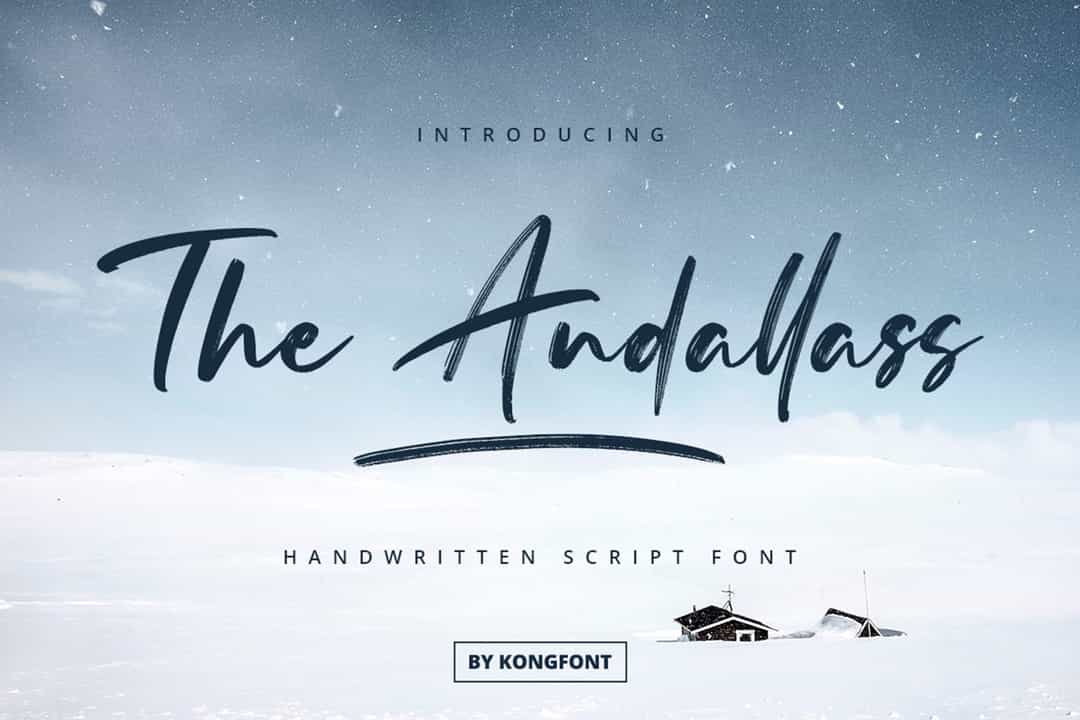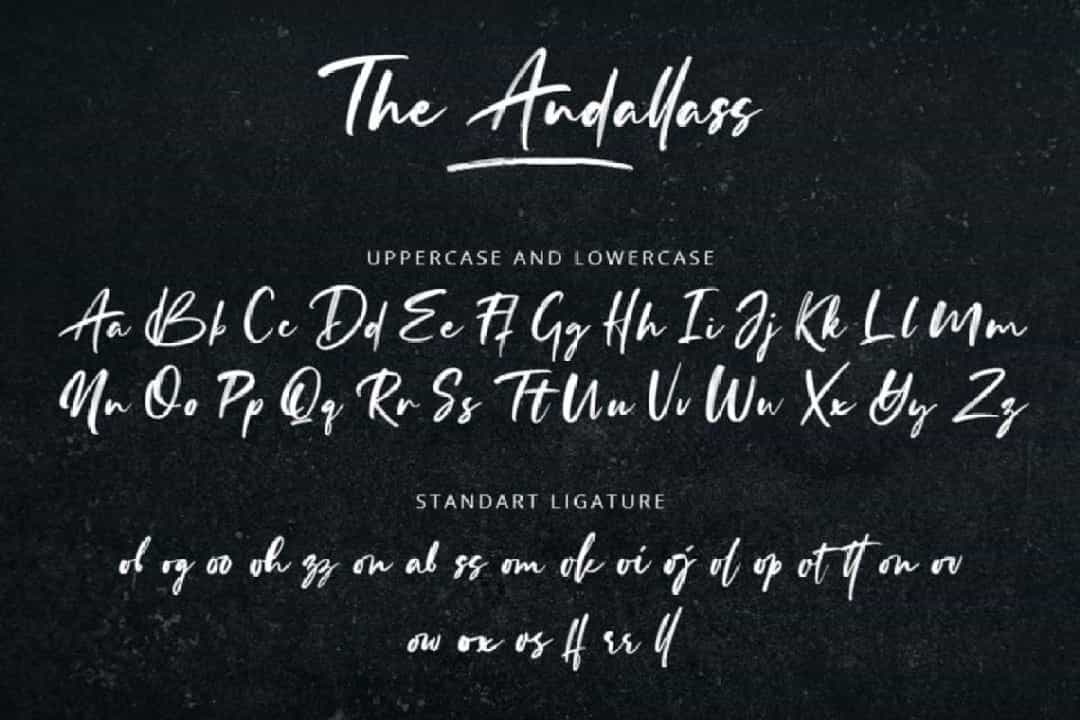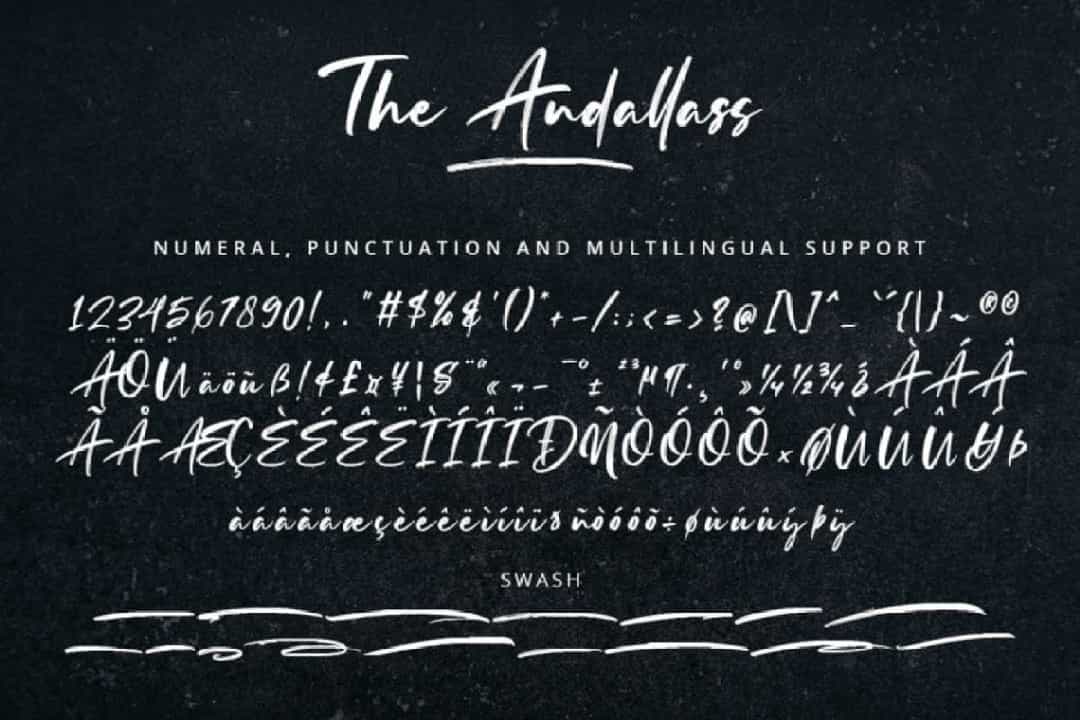
Discover The Andallass Font, part of the Brush collection—a versatile and unique font perfect for adding a personal touch to your projects. Download it for free and enjoy crafting designs with style, from invitations to social media posts. This font is available exclusively for personal use, giving you the freedom to create without limits. Unlock your creativity with The Andallass Font today!
The Andallass Brush Font is perfect for creating adorable invitations for weddings, birthdays, or other celebrations. A set of letters and numbers that can be used in your project. Also great as Logotypes, Branding Designs, Digital Lettering Arts (T-Shirt/Apparel Lettering Arts), Posters Magazine Signs Ads as well as branding designs!